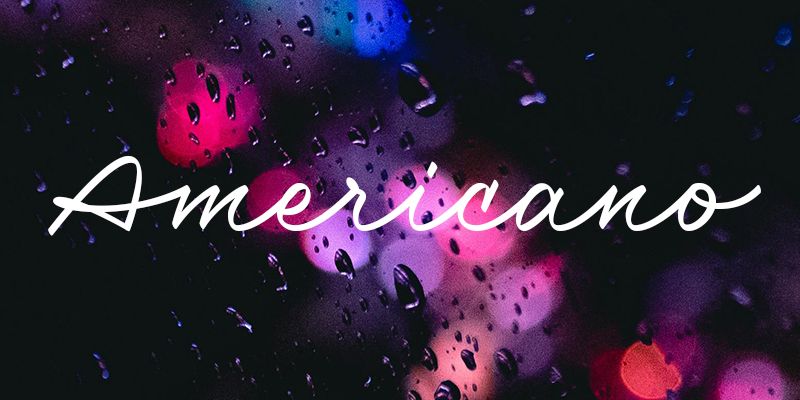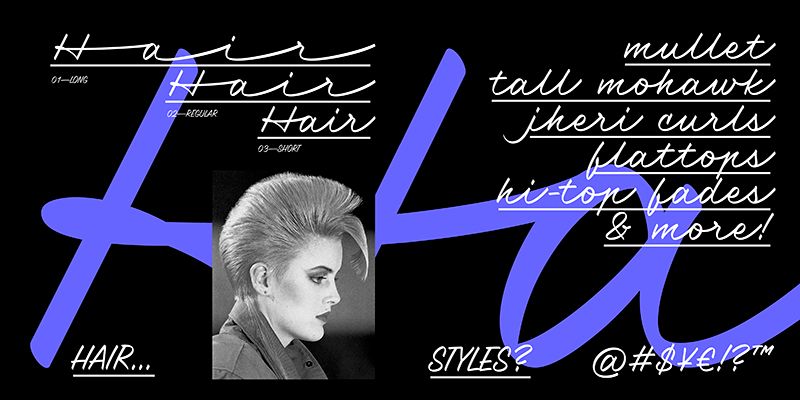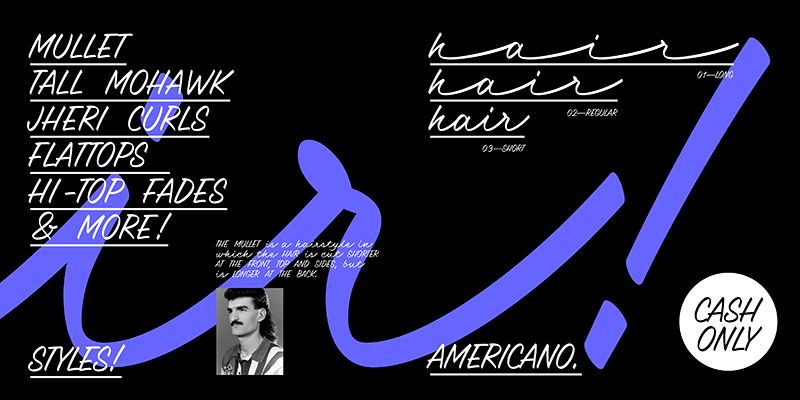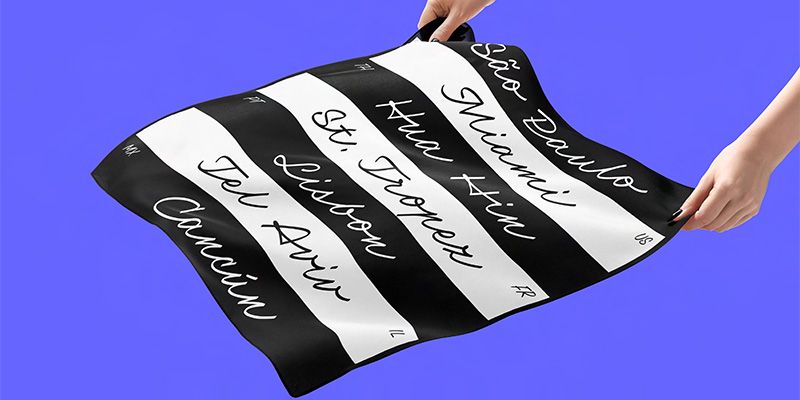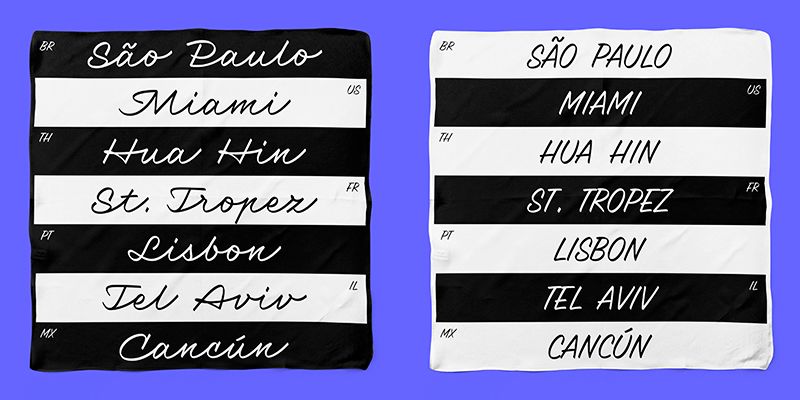
Americano is a connected script based on the Czech cursive script called pentlovka. The pentlovka’s elasticity is based on the logic in sign painting, where the sign painter had to choose the proper spacing between letters according to the length of the signboard so that the letters would fit evenly into the designated area. Connecting strokes then serve more as an ornament. Americano is like a hybrid – it has a flowing effect, but its rhythm and regular connection are solid. Here, the smooth connections are made using the necessary initial, medial, isolated, and final glyph forms. The script typeface took on the exact character of a flat marker. Americano’s name is derived from the long connecting strokes – as a drink you can sip for however long you want – as café “americano”!